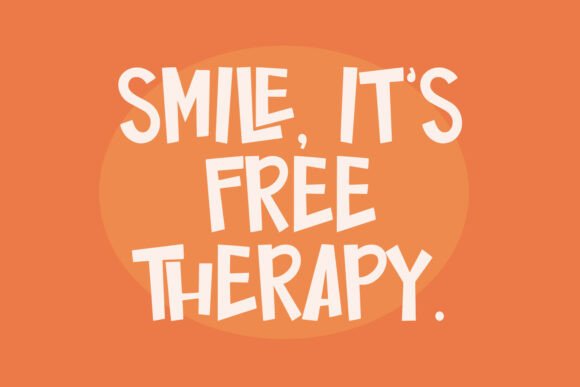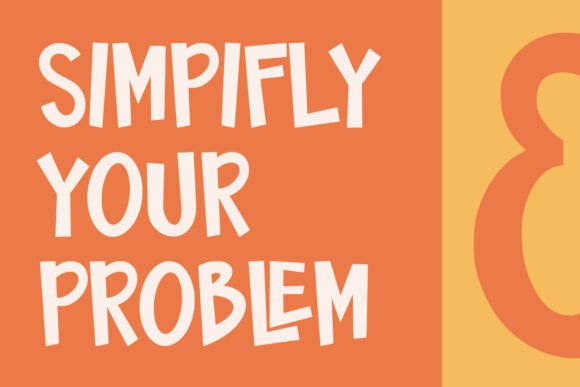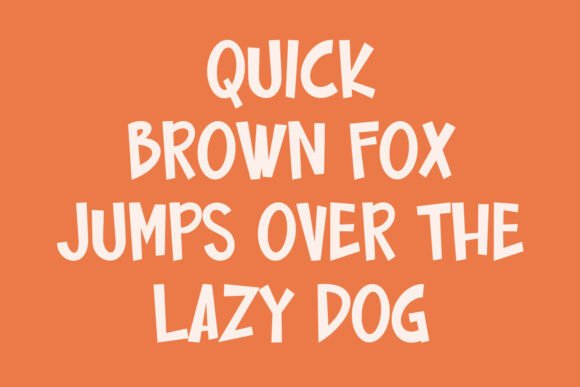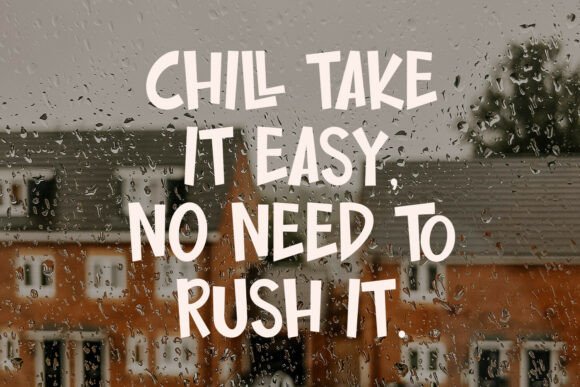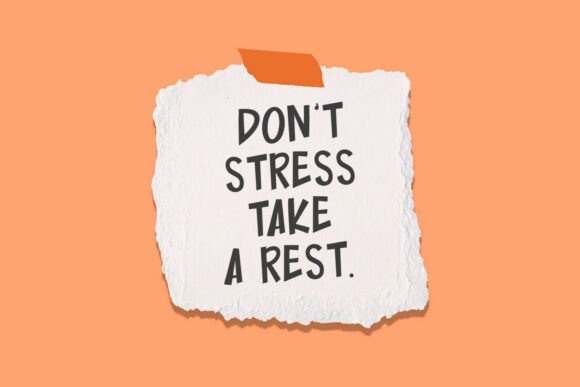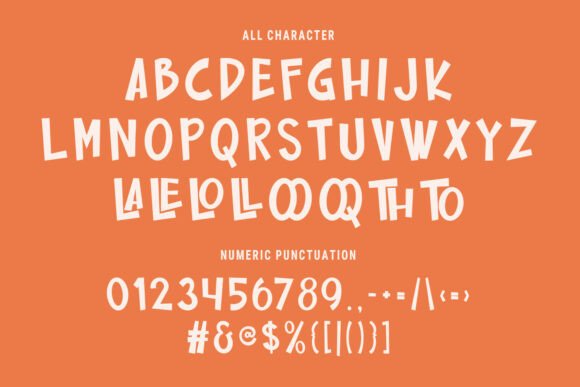
Introduction to Ikuco Font
Have you ever been working on a creative project, and you just can’t seem to find the right font to capture the playful vibe you’re going for? I know I have. That’s why I’m excited to introduce you to the Ikuco Font, a bold and quirky display font that’s bursting with personality.
With its asymmetrical letterforms and hand-cut look, this font radiates a fun, modern attitude that’s perfect for branding, packaging, children’s designs, and creative headlines. Whether you’re working on a fun poster or playful digital content, the Ikuco Font adds a fresh and lively vibe to any layout, making it a valuable resource for designers looking to elevate their designs with a unique touch.
Key Features of Ikuco Font
- High-quality design: Ikuco Font is designed to provide a unique and elegant look for your creative project.
- Unique characteristics: The font features a distinctive and stylish design, making it perfect for adding a touch of elegance to your creative project.
Honest Review: Ikuco Font
I recently had the chance to work with the Ikuco Font, and I’m excited to share my thoughts with you. As a designer, I’m always on the lookout for high-quality design resources to help bring my creative projects to life.
Here are some things that I really like about the Ikuco Font:
- ✨ The Ikuco Font is incredibly versatile and can be used for a wide range of creative projects, from logos to typography-heavy designs.
- ⚠️ The font is a bit on the heavier side, so it may not be the best choice for designs where a more subtle font is needed.
Overall, I was really impressed with the Ikuco Font. Its high quality and versatility make it a great addition to any designer’s toolkit. While there are some limitations to consider, I think it’s definitely worth checking out – especially if you’re looking for a free design resource to help bring your creative projects to life.
Ikuco Font is ideal for use in a wide range of creative projects, including:
Graphic design projects, such as logos, brochures, and business cards
Web design projects, such as websites and landing pages
Print design projects, such as posters, flyers, and magazines